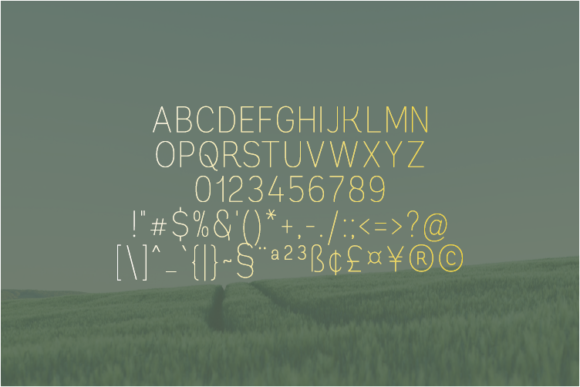
Introduction to Smarterm Font
Have you ever been stuck on a creative project, struggling to find the perfect font to match your vision? That was me just the other day, and I know I’m not alone. It’s frustrating when the right words just aren’t coming together – until you stumble upon the perfect typeface.
That’s where the Smarterm Font comes in – a game-changer for designers and creatives alike. This clean and simple sans serif font is a breath of fresh air, offering a high-quality design resource that’s perfect for both formal and non-formal projects. With its transparent background and beautiful arrangement of letters, it’s a free download that’s sure to elevate your design game.
As a valuable addition to any design toolkit, the Smarterm Font is a must-have for anyone looking to take their creative projects to the next level.
Key Features of Smarterm Font
- High-quality design for creative projects: Smarterm Font is designed to provide a unique and stylish touch to various creative projects, making it a valuable design resource.
- Transparent background: This font features a transparent background, allowing users to easily combine it with other design elements and maintain a seamless look.
- Unique characteristics: Smarterm Font features a distinctive and modern design, making it stand out from other fonts and adding a touch of elegance to any creative project.
Honest Review: Smarterm Font
As a designer, I’m always on the lookout for high-quality fonts that can elevate my creative projects. Smarterm Font caught my attention with its sleek and modern design, making it a great addition to any design resource collection.
- ✨ High-quality design that’s perfect for modern creative projects
- ✨ Supports transparent background, making it easy to use in various design scenarios
- ⚠️ Limited character set, which may not be suitable for projects requiring extensive text support
- ⚠️ Some users may find the font too modern or trendy, which may not appeal to those with a more classic design aesthetic
Overall, I’m impressed with Smarterm Font’s design and versatility. While it may not be perfect for every project, it’s definitely a great addition to any designer’s toolkit. I’d recommend it to anyone looking for a high-quality font for their creative project.
Smarterm Font is a high-quality design resource ideal for creative projects that require a unique and modern touch. With its transparent background and sleek design, it’s perfect for adding a professional touch to your designs.
Tips for Getting the Most Out of Smarterm Font
To get the most out of Smarterm Font, try using it in combination with other design elements, such as images and graphics. You can also experiment with different font sizes and styles to create a unique design effect.
Smarterm Font is ideal for a range of creative projects, including logos, brochures, and business cards. It’s also a great resource for designers who need a high-quality font with a transparent background.